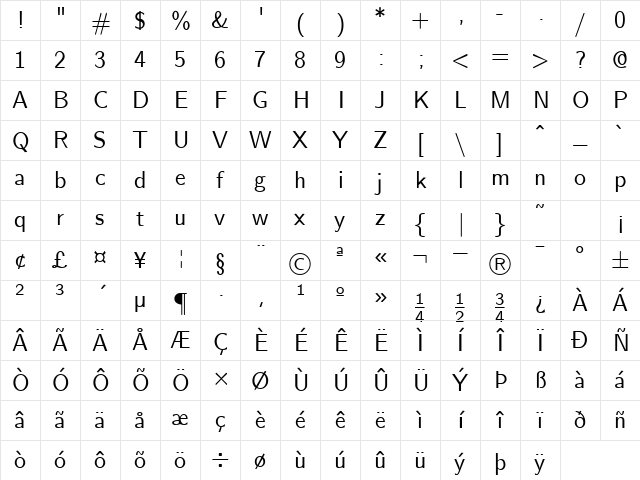
Nova Regular Free Font
Nova Regular
Nova Family
Nova Regular
Complete Nova Regular glyph index. Displaying only characters natively supported by Nova Regular font.
Design Context for Nova
Nova is a composed and adaptable typeface that performs quietly and consistently across a wide range of design contexts.